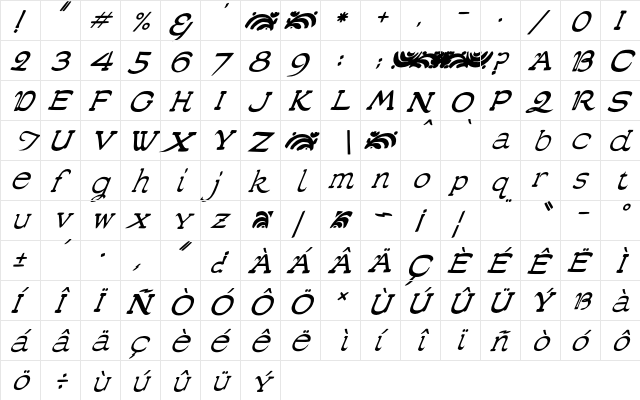
JMH Poudre Italic
Design Context for JMH Poudre Typeface
JMH Poudre offers clean, dependable letterforms without strong stylistic allegiance, making it a practical choice for designers who need flexibility. The slanted form adds forward momentum and visual energy.